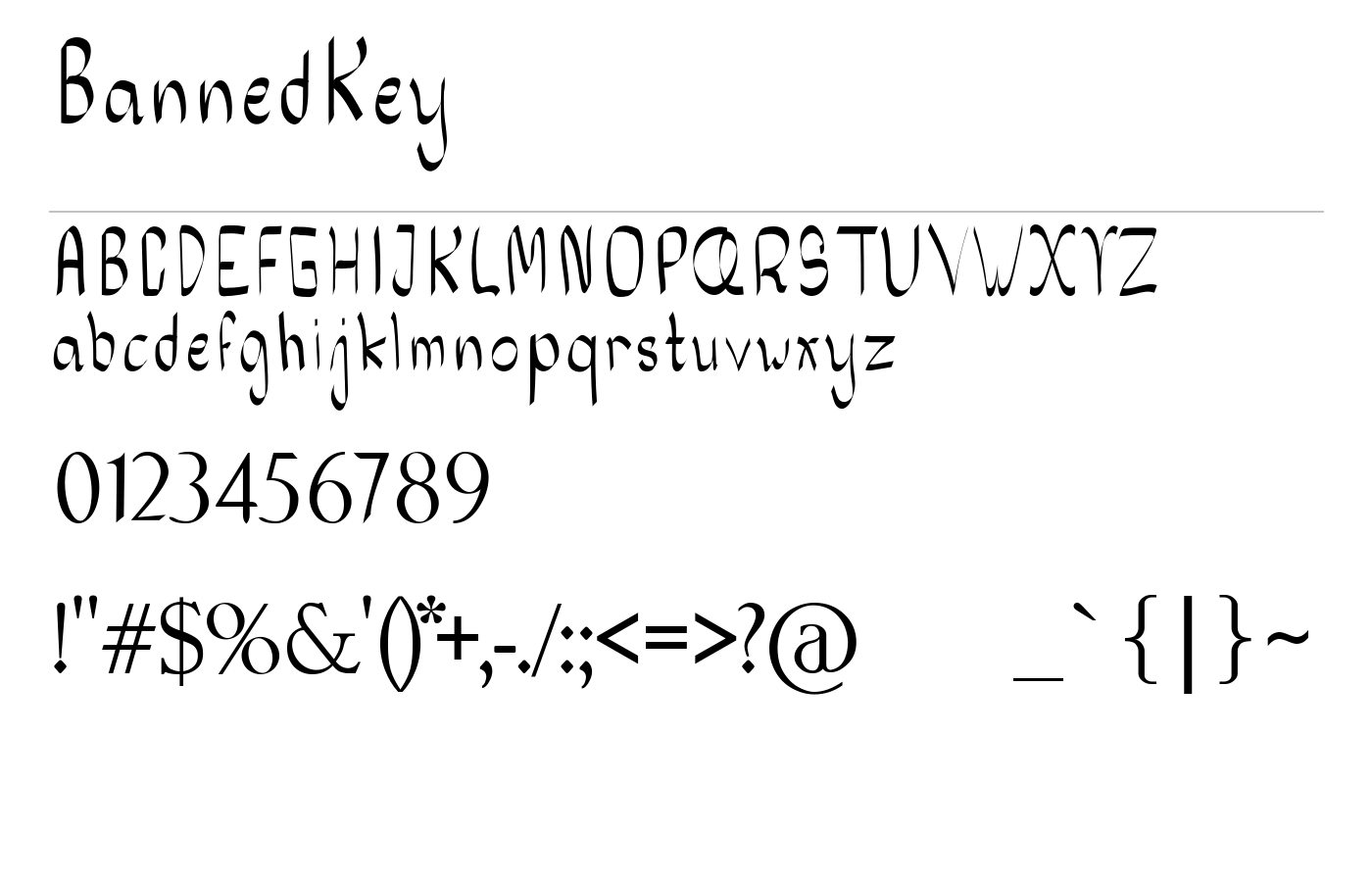
BannedKey is a quirky, narrow serif font with a distinct hand-drawn feel, featuring irregular stroke widths and whimsical letterforms that give it character and charm. Its tall, slender shapes and slight contrast make it ideal for creative headlines, posters, and branding projects where a playful yet stylish look is desired. This font works best when used to add personality and uniqueness to designs rather than for extended body text.
BannedKey Font